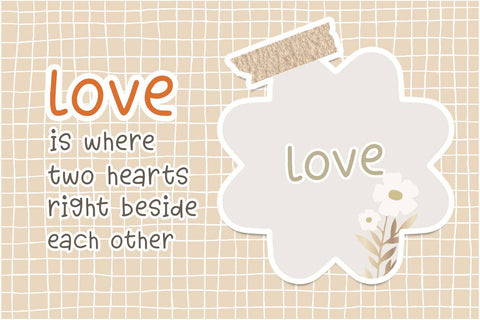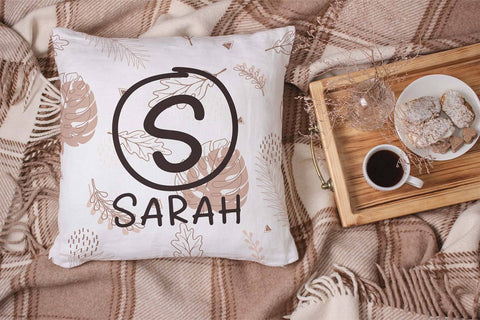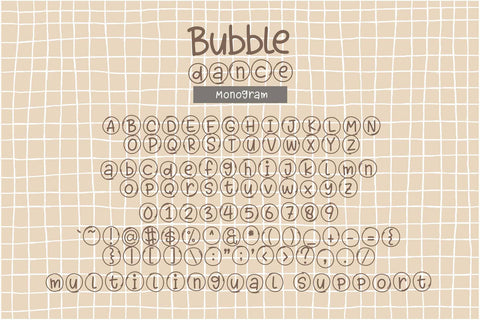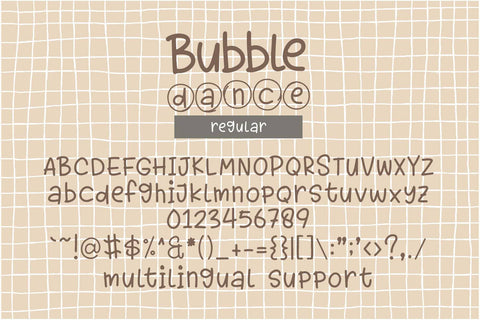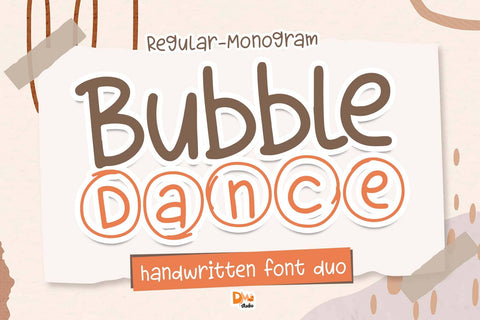
Bubble Dance Font
Elevate your designs with the Bubble Dance Font Duo Monogram. This versatile duo offers a perfect blend of elegance and playfulness, allowing you to create stunning monograms effortlessly. Download now and add a personalized touch to your projects.
Bubble Dance Font Duo Monogram is a stylish and versatile typeface set designed to add a touch of elegance and sophistication to your designs. Featuring a combination of script and sans-serif fonts, this duo offers endless possibilities for creating stunning monograms, logos, branding materials, and more. Elevate your designs with the graceful and dynamic aesthetic of the Bubble Dance Font Duo Monogram.
- Stylish Duo Monogram: The Bubble Dance Font Duo Monogram consists of a handwriting font and a complementary monogram font, offering a perfect combination for creating elegant and cohesive monograms.
- Versatile Application: Ideal for a wide range of design projects, including logos, branding, invitations, stationery, and more, adding a touch of sophistication to your creations.
- Uppercase and Lowercase Letters: Both uppercase and lowercase letters included for creative flexibility and customization.
- Punctuation and Symbols: Comprehensive set of punctuation marks, numerals, and symbols for versatile and consistent use.